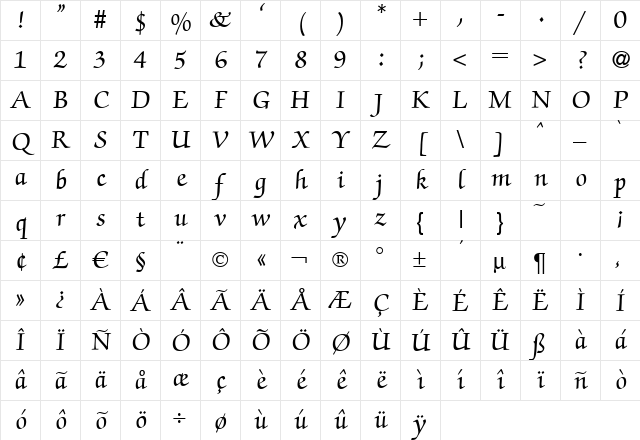
ZabriskieScript Bold
ZabriskieScript Family
Design Context for ZabriskieScript
ZabriskieScript flows with the natural rhythm of handwritten lettering, making it ideal for designs that call for warmth and personal expression. Its bold stroke weight gives it real presence on the page.
Font Pairing: Combine ZabriskieScript with a simple geometric sans for maximum contrast - the tension between flowing curves and clean structure is a classic typographic pairing.
Pro Tip: Use ZabriskieScript for short runs of text - names, titles, or taglines. Extended body copy in script faces tires the eye quickly.